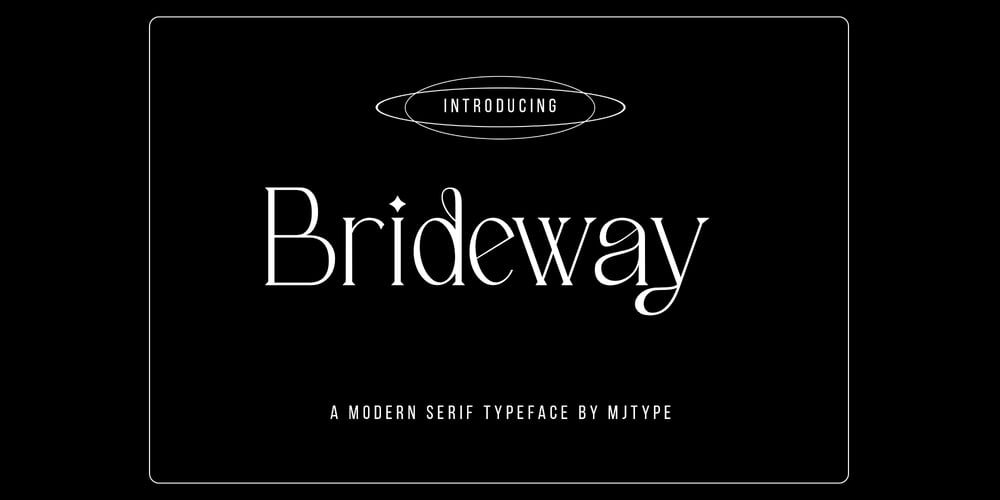
Brideway Font Family was designed by Muhamad Junaid and published by MJType. Brideway contains 1 styles and family package options. Brideway Typeface is a serif font that combines elegance and simplicity in its letter shapes, with playful ligatures to enhance its legibility. Use this font to create unique and sophisticated logos, headlines for your next project, designs for posters, t-shirts and business cards. Bridger Typeface is a versatile font that can elevate the look of any design project.